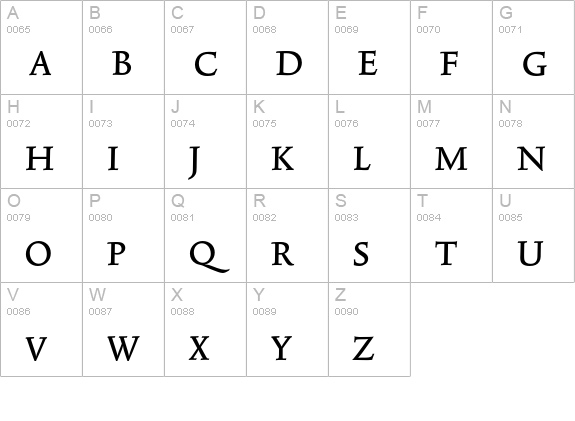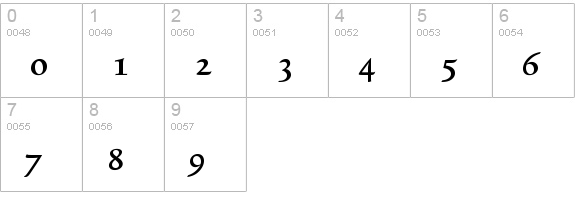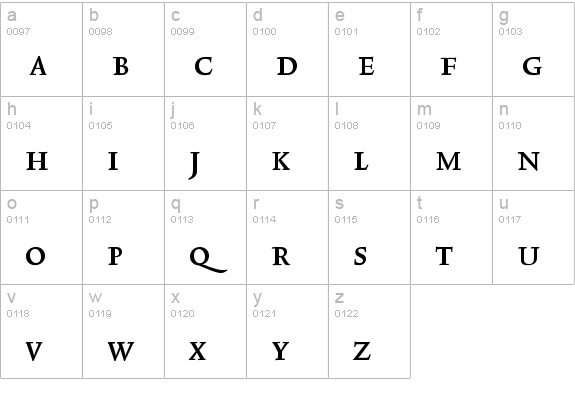
TriniteNo2-MediumWideExp font is a captivating and versatile typeface that adds a touch of elegance and sophistication to any design project. Its medium wide expansion provides a balanced and harmonious appearance, making it suitable for a wide range of applications. With its clean and modern lines, TriniteNo2-MediumWideExp font is perfect for both digital and print designs. Whether you're creating a professional business presentation, designing a logo, or crafting a stylish wedding invitation, this font will effortlessly elevate your work to the next level. The combination of its medium weight and wide expansion gives TriniteNo2-MediumWideExp font a sense of stability and presence. It exudes confidence and professionalism, making it the ideal choice for corporate branding and advertising materials. One of the most appealing aspects of TriniteNo2-MediumWideExp font is that it is free. Yes, you read that right! This stunning typeface is freely available to download at FontsMarket.com. Now you can enjoy the benefits of a high-quality font without any cost. So what are you waiting for? Go ahead and download TriniteNo2-MediumWideExp font today from FontsMarket.com and let your creativity soar. With its unique combination of style and accessibility, this font is sure to make a lasting impression on your audience.